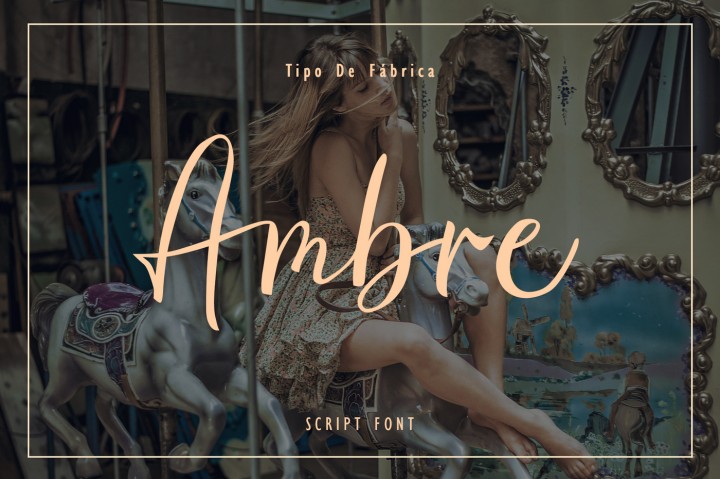
Ambre || Script Font
mbre Script Font is a cute font handlettering thats fit for wedding project, fashion designer, photography service, instagram stories, natural product, coffee shop, branding. We were focus on the beauty of its shape.
Ambre Script Font  font contains following ligatures:
az iz ez oz uz tt qq yy sk gg att bz Am
Ambre Script Font also includes full set of uppercase and lowercase letters, multilingual symbols, numerals, punctuation.